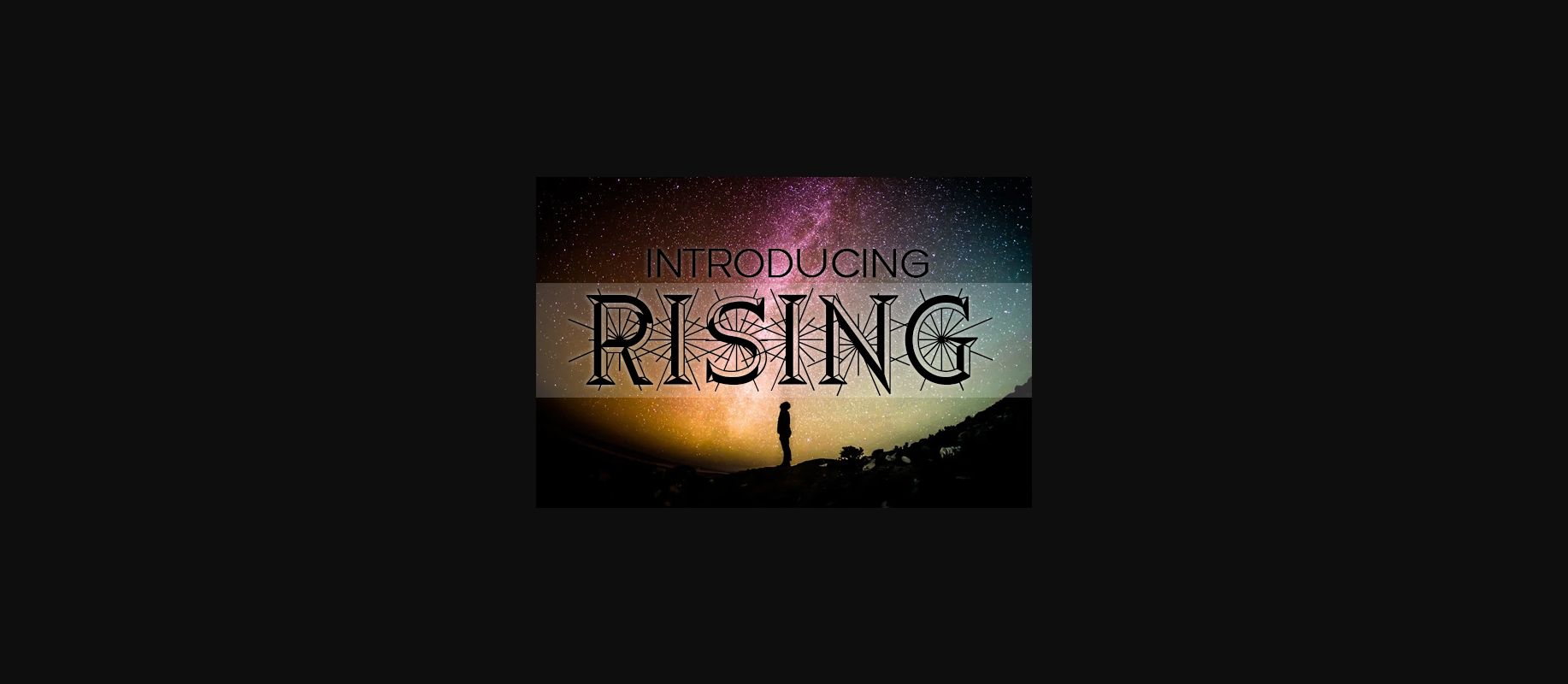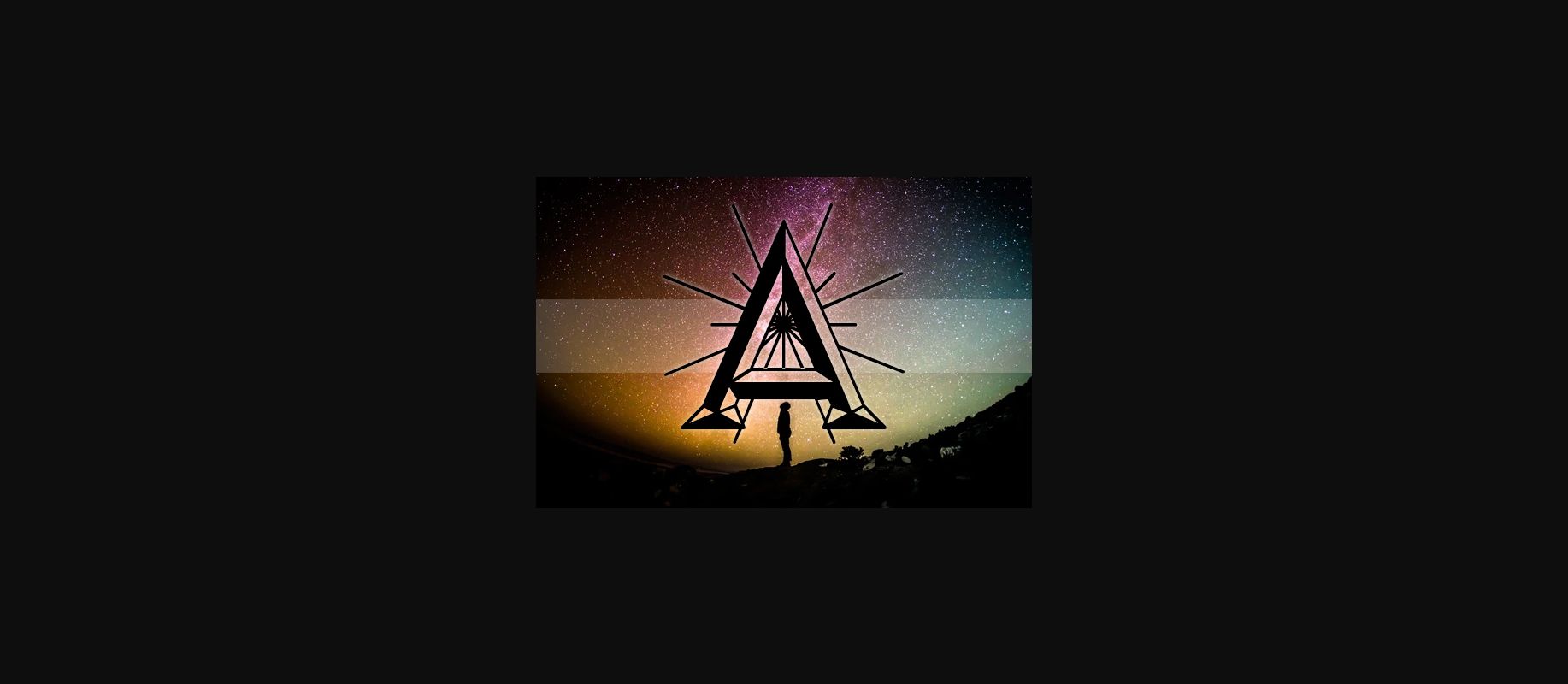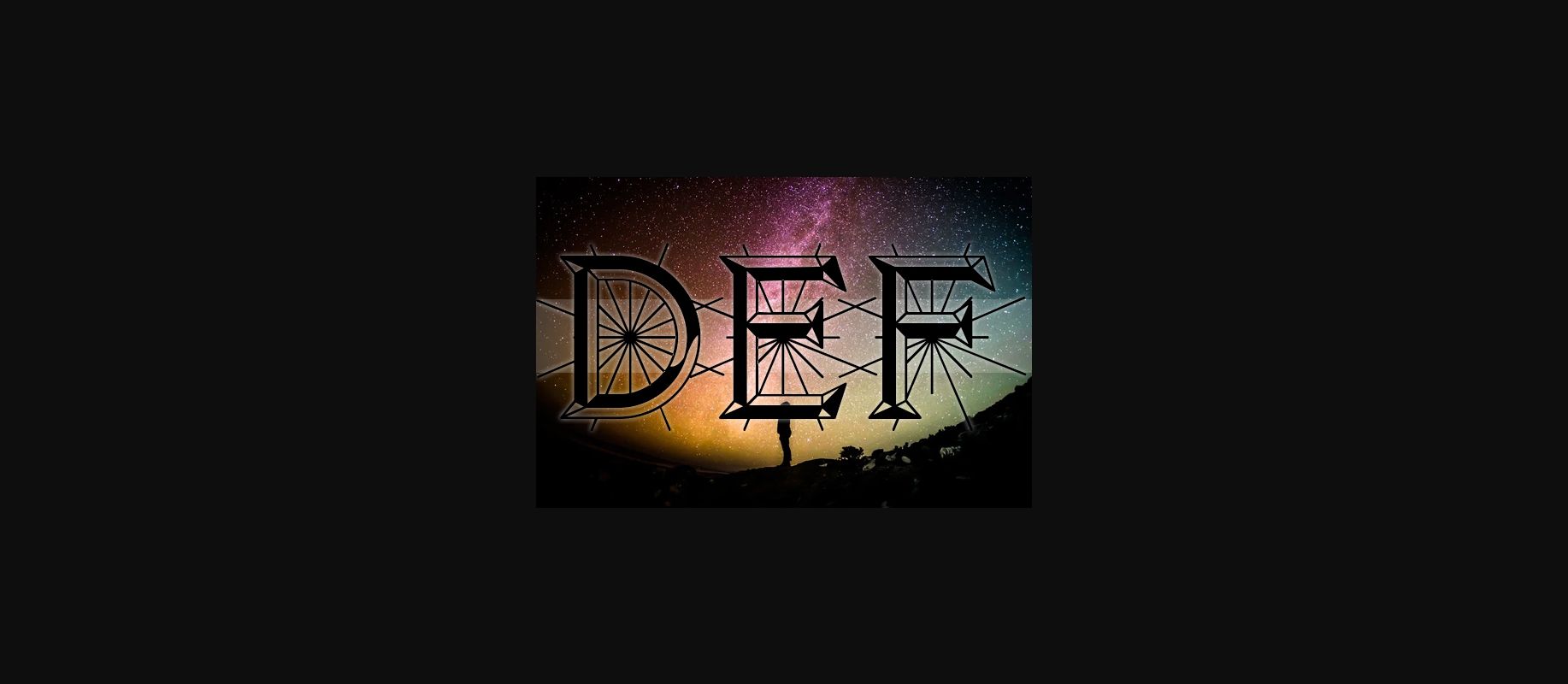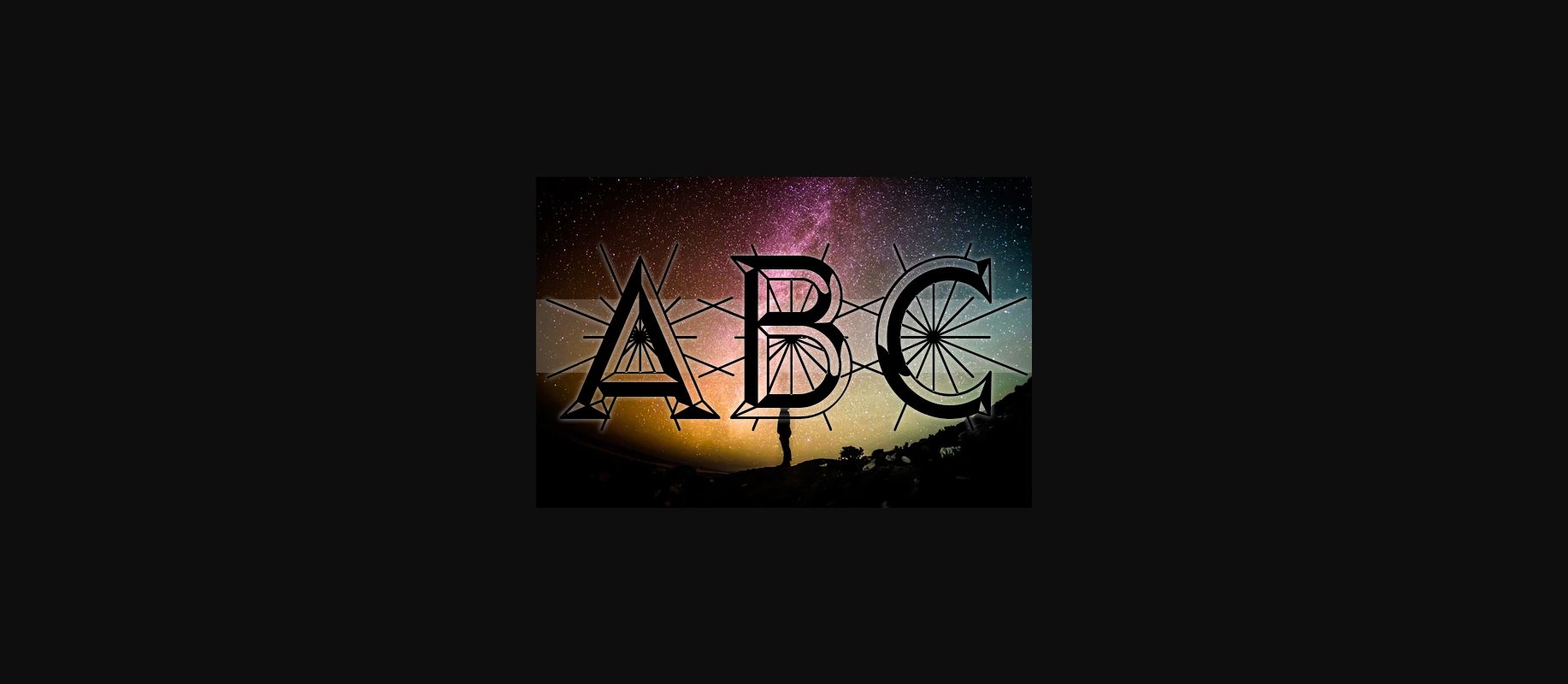
Rising Font
About Rising Font
Rising is an incredibly cool and original decorative font. Use this font for your designs and explore its endless possibilities.